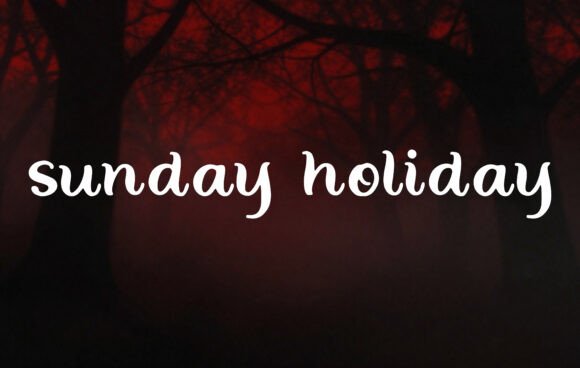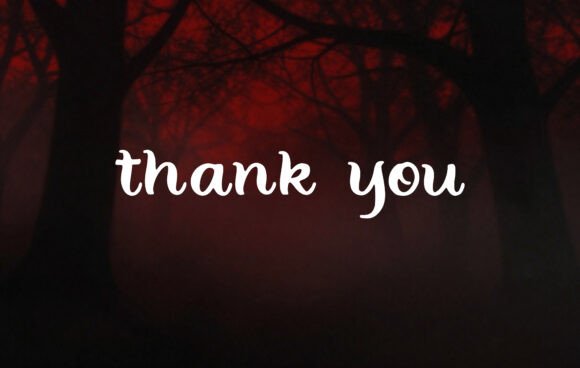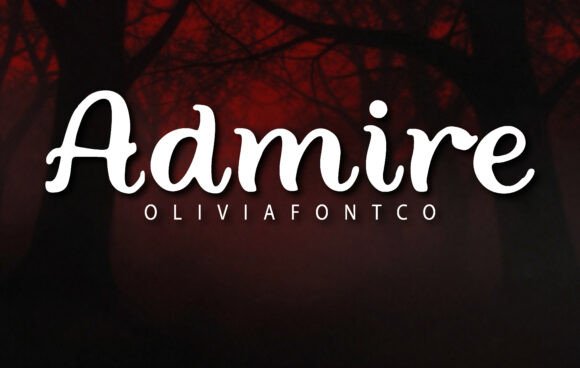
Unveiling the Admire Font: A Sophisticated Display Script for Dramatic Impact
The Admire font is a stunning, semi-bold display script that embodies the essence of mystery and cinematic drama. With its thick, confident strokes and elegant terminals, this typeface is engineered to seize attention and leave a lasting impression. Whether you’re a designer, craftsperson, or simply a typography enthusiast, the Admire font is sure to captivate your imagination and inspire your creative endeavors.
A Design that Commands Attention
The Admire typeface boasts a high-contrast design that strikes a perfect balance between classic and contemporary aesthetics. Its bold, sweeping curves and sharp terminals evoke a sense of sophistication and glamour, making it an ideal choice for editorial layouts, book covers, and high-end lifestyle branding. The font’s semi-bold weight ensures that it takes center stage, while its elegant lines and curves add a touch of refinement and poise.
Atmospheric Environments
The Admire font is specifically designed to thrive in atmospheric environments, where its dramatic flair can be fully appreciated. In the preview, the font is showcased against a dark, foggy background, highlighting its ability to hold its own as a “hero” element. To further enhance the font’s impact, consider adding a subtle drop shadow or an outer glow to make the white letters pop against deep, moody imagery.
Pairing Suggestions
To create a visually stunning combination, pair the Admire font with thin, wide-tracked sans serifs for a high-fashion look. This harmonious union will add a touch of elegance and sophistication to your design, making it perfect for luxury product labels, movie titles, or dramatic editorial spreads.
Applications and Use Cases
The Admire font is versatile and can be applied to various design projects, including:
- Editorial layouts: Use the Admire font to add a touch of drama and sophistication to your magazine or newspaper spreads.
- Book covers: The font’s cinematic feel makes it an excellent choice for thriller or romance novel covers.
- High-end lifestyle branding: Elevate your luxury brand with the Admire font’s elegant and refined aesthetic.
- Movie titles: Create eye-catching movie titles that evoke a sense of mystery and intrigue.
- Luxury product labels: Add a touch of glamour and sophistication to your high-end product labels.
To get the most out of the Admire font, consider the following tips:
- Experiment with different colors and textures to create a unique and captivating visual effect.
- Use the font’s bold weight to create a striking contrast with lighter or more delicate typography.
- Don’t be afraid to add subtle effects, such as drop shadows or glows, to enhance the font’s dramatic impact.
The Admire font is a powerful tool for designers and craftspersons looking to add a touch of drama and sophistication to their projects. With its elegant lines, bold strokes, and high-contrast design, this typeface is sure to leave a lasting impression. Whether you’re creating a movie title, a luxury product label, or a dramatic editorial spread, the Admire font is an excellent choice for those who want to make a statement.
So why settle for ordinary typography when you can make a statement with the Admire font? Unlock its full potential and take your designs to the next level with this stunning, semi-bold display script.